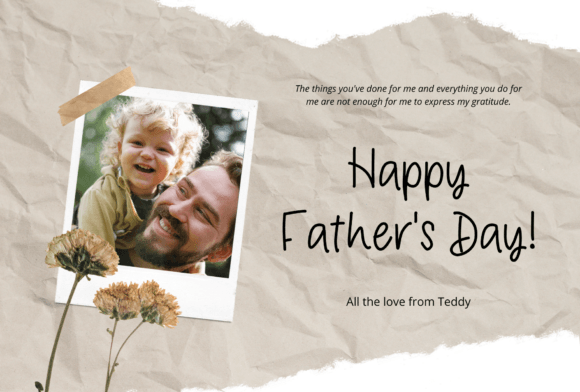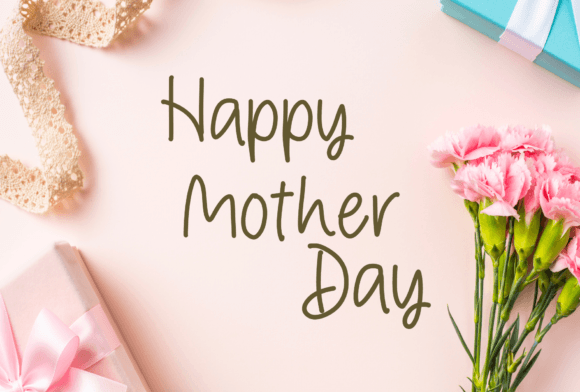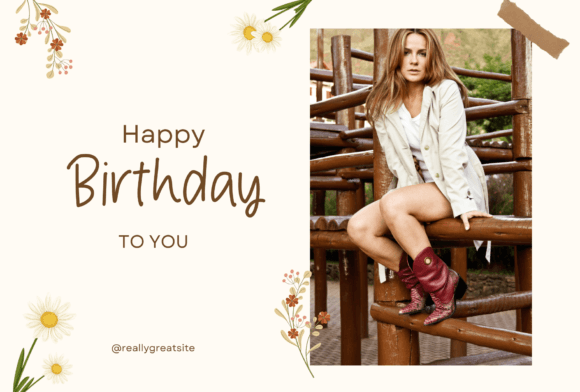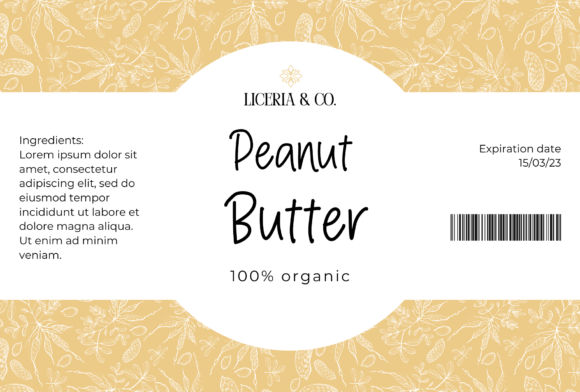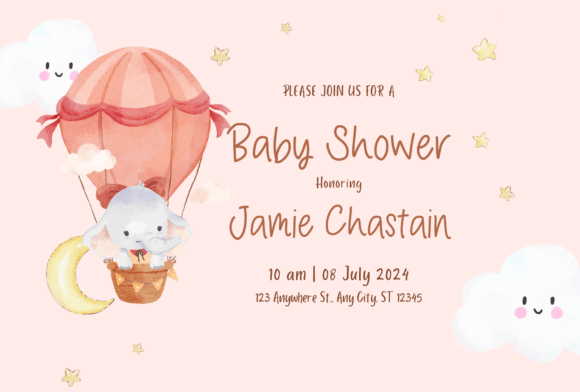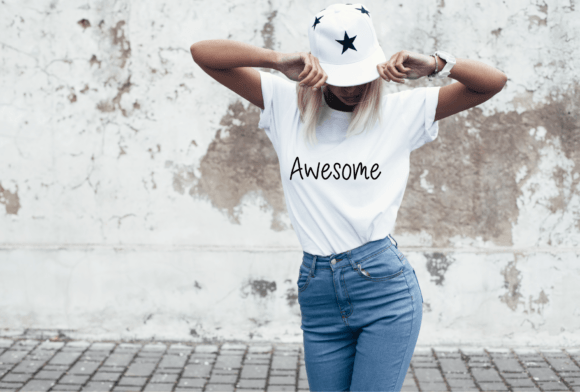
Introducing Delight Font: The Cheerfully Quirky Typeface for Your Creative Projects
Are you looking for a font that can add a touch of personality and playfulness to your designs? Look no further than Delight Font, a hand-crafted typeface that is sure to bring a joyful aesthetic to any creation. With its cheerfully quirky vibe, Delight Font is perfect for designers and crafters who want to imbue their work with warmth and a personal touch.
The Perfect Font for Tokens of Love
Delight Font is especially suited for projects that require a touch of affection, such as Valentine’s Day cards, Christmas greetings, and anniversary mementos. The font’s playful and charming nuance makes it ideal for expressing your feelings in a unique and creative way. Imagine creating a beautiful Valentine’s Day card with a heartfelt message in Delight Font – it’s sure to make the recipient feel special.
But Delight Font is not just limited to cards. Its versatility shines through in a wide range of product designs, making it perfect for crafters who want to add a personal touch to their creations. From T-shirts and planners to mugs and keychains, Delight Font can embellish a plethora of items with its charming nuance.
Adding a Personal Touch to Your Designs
One of the best things about Delight Font is its ability to add a personal touch to your designs. The font’s hand-crafted nature gives it a unique and human feel that is hard to replicate with more traditional fonts. Whether you’re creating a custom gift for a loved one or designing a product for your online store, Delight Font is sure to make your creation stand out.
Endless Design Possibilities with Delight Font
The design possibilities with Delight Font are endless. Here are just a few ideas to get you started:
- Custom gifts: Use Delight Font to create custom gifts for loved ones, such as personalized mugs, T-shirts, and keychains.
- Stationery: Create beautiful stationery sets with Delight Font, including notecards, journals, and planners.
- Party decorations: Use Delight Font to create custom party decorations, such as banners, garlands, and gift tags.
- Product design: Add a personal touch to your product designs with Delight Font, including product labels, packaging, and branding materials.
Why Choose Delight Font?
So why choose Delight Font for your design projects? Here are just a few reasons:
- Unique and playful: Delight Font is a unique and playful typeface that is sure to add a touch of personality to your designs.
- Hand-crafted: The font’s hand-crafted nature gives it a unique and human feel that is hard to replicate with more traditional fonts.
- Versatile: Delight Font is incredibly versatile and can be used in a wide range of design projects, from cards and stationery to product design and party decorations.
In conclusion, Delight Font is a cheerfully quirky typeface that is perfect for designers and crafters who want to add a touch of personality and playfulness to their designs. With its hand-crafted nature and versatile design, Delight Font is sure to become a go-to font for anyone looking to create unique and eye-catching designs. So why not give Delight Font a try today and see the difference it can make in your design projects?